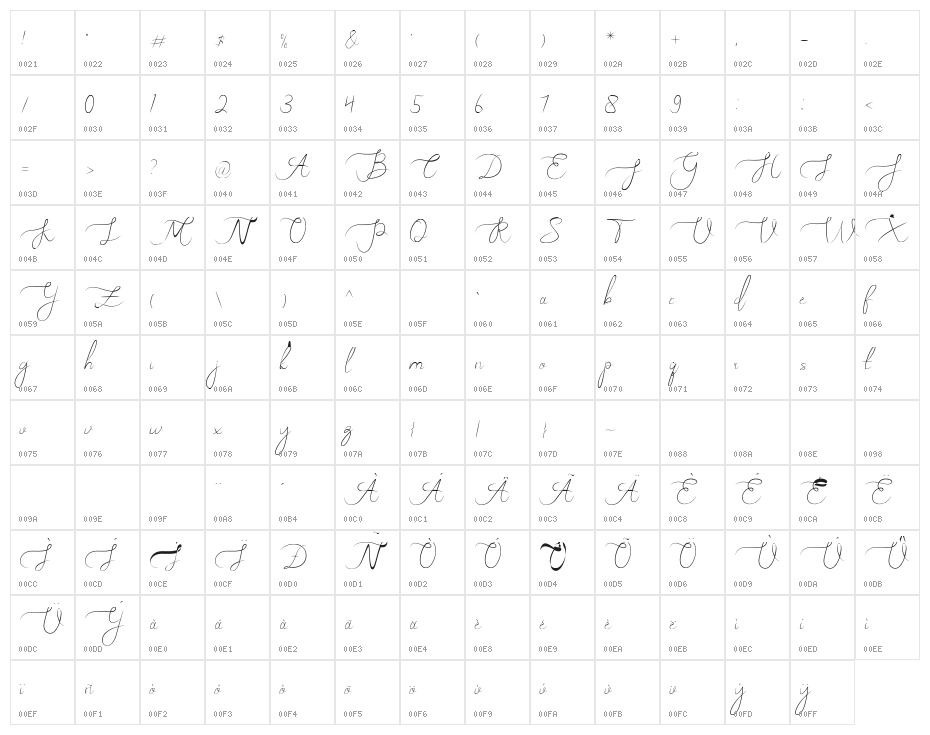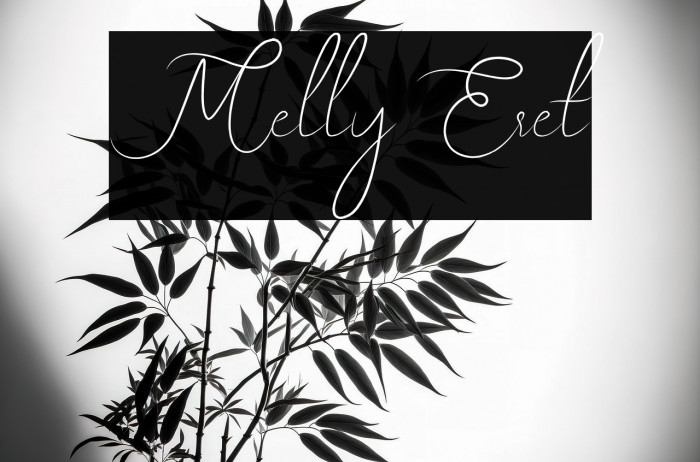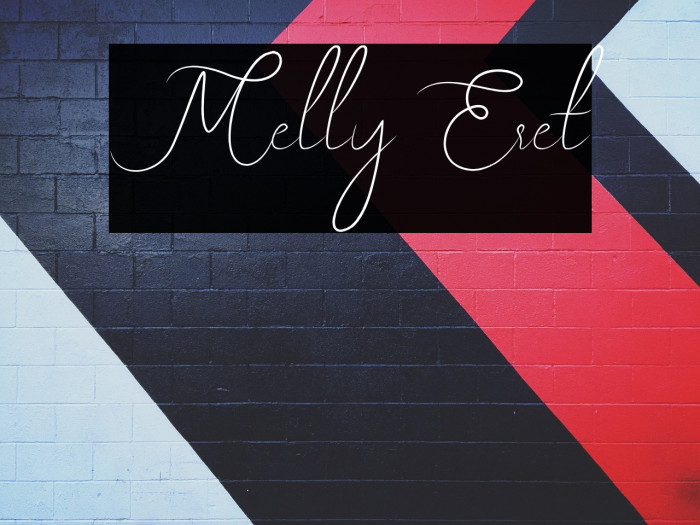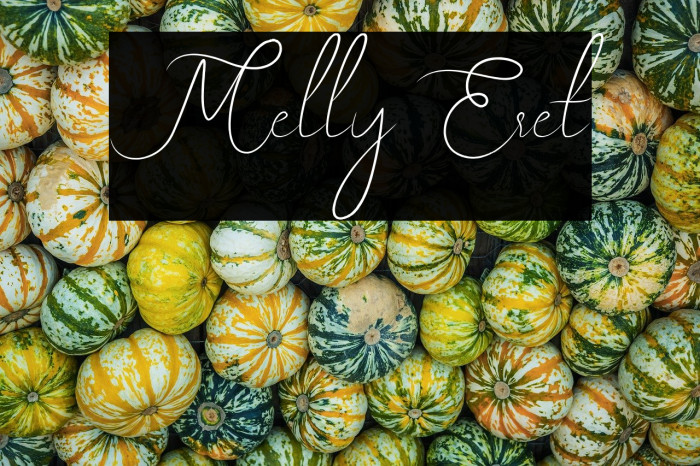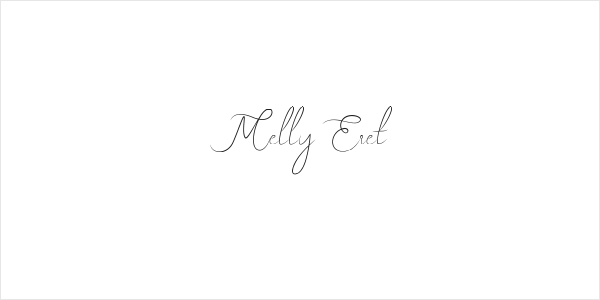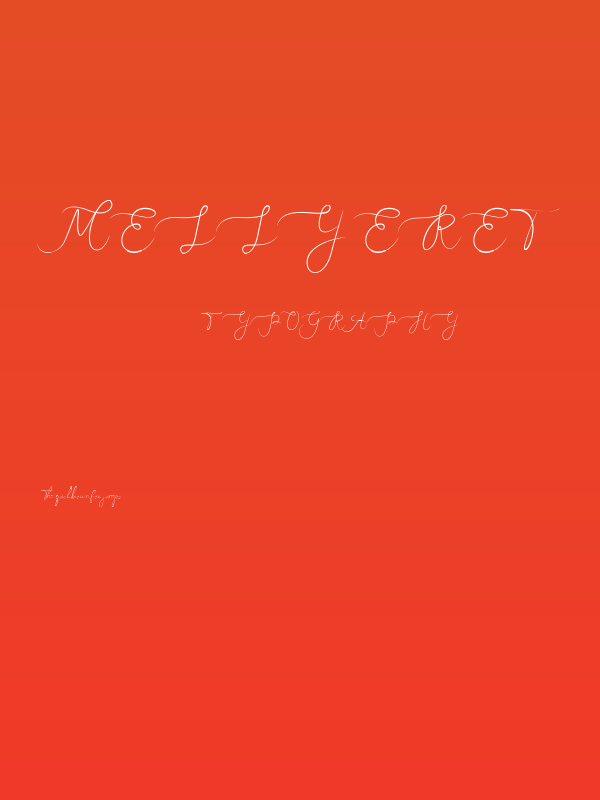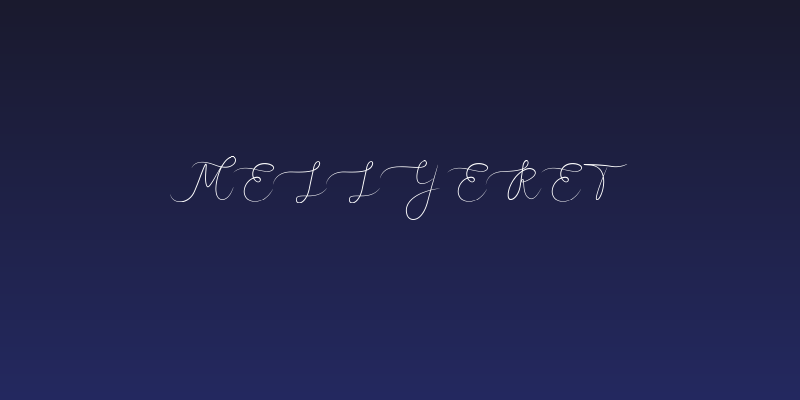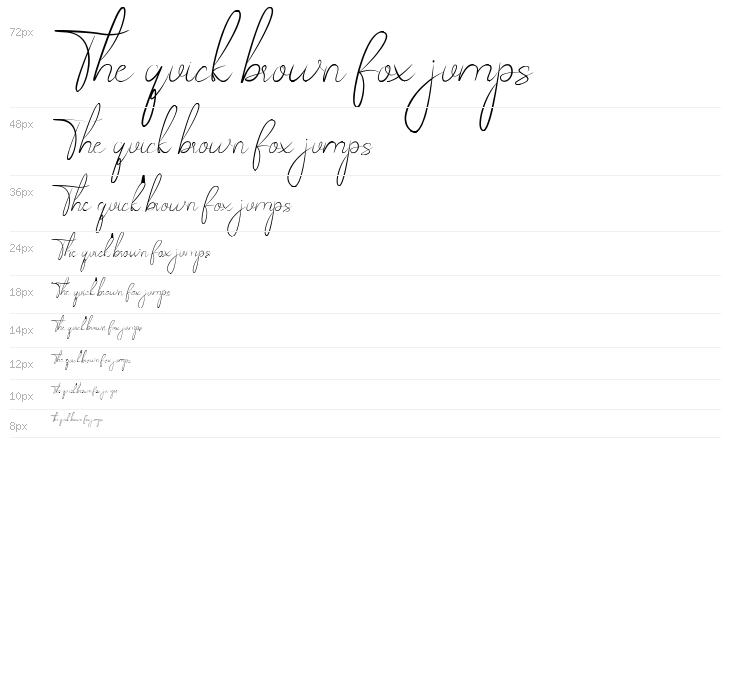
Melly Eret Font
Melly Eret Description
This font features an elegant, flowing script style with a handwritten appearance. The uppercase letters are characterized by their graceful loops and curves, giving them a sophisticated and artistic flair. The lowercase letters maintain a consistent style, with elongated ascenders and descenders that enhance the font's fluidity. The numerals are designed to match the overall aesthetic, with smooth curves and a balanced structure. Special characters are included, maintaining the same elegant style, making this font versatile for various design needs.
| Overall Style | Elegant, Artistic |
| Proposed Projects | Ideal for wedding invitations, greeting cards, branding, and elegant logo designs. |